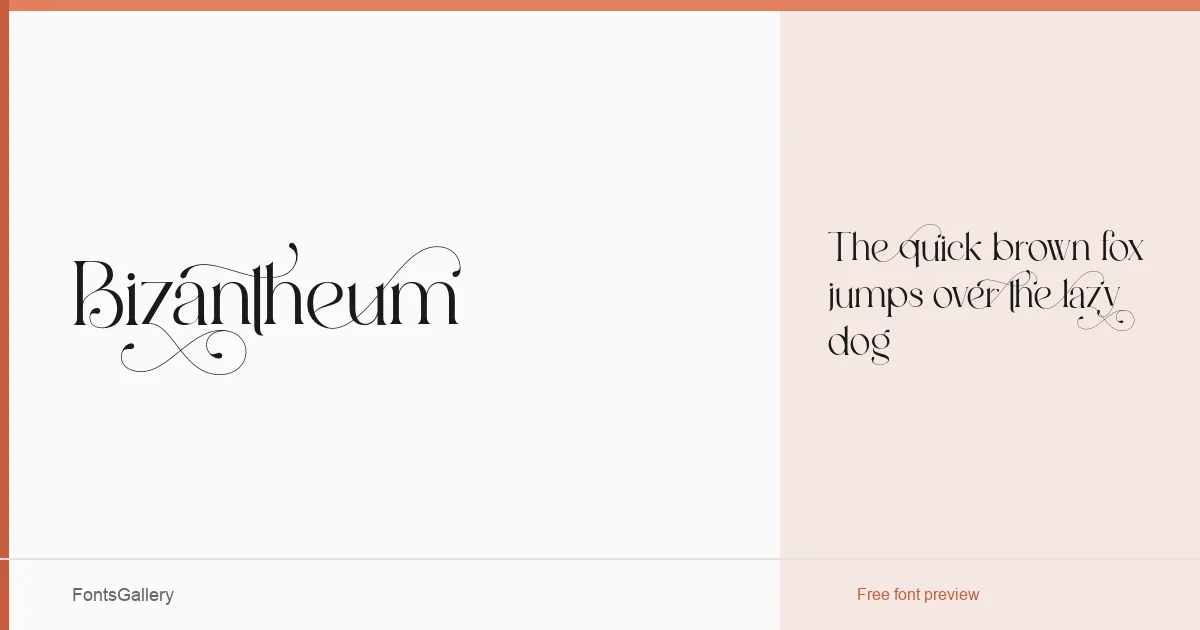
About Bizantheum Font
Bizantheum is a serif typeface crafted by Aluyeah Studio, exuding an air of elegance and timeless sophistication. Its classic sensibility makes it a compelling choice for projects that demand a touch of romance and luxury. The result is a font that feels both refined and deeply expressive.
Bizantheum's letterforms draw from classic serif traditions, featuring graceful strokes and details that evoke a sense of luxury and romantic charm. Each character is shaped to carry an elegant poise, making the typeface feel at home in formal and decorative contexts alike. The overall aesthetic balances classic structure with an ornate sensibility that feels both timeless and distinctive.
Bizantheum is ideally suited for logos, wedding stationery, invitation cards, branding materials, and certificates where an elevated, classic aesthetic is desired. Its romantic and luxurious character makes it especially fitting for high-end event design and prestige branding projects. For a harmonious typographic pairing, consider combining Bizantheum with Helvetica for clean contrast or with Ballmain for a complementary decorative feel.